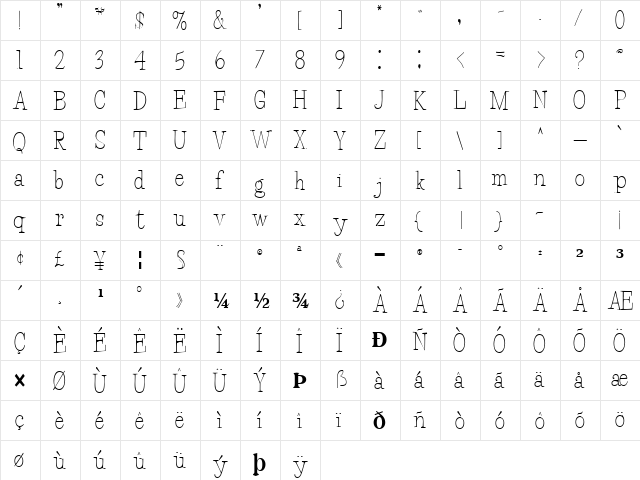
TylerFont88 Regular
Design Context for TylerFont88 Typeface
TylerFont88 is a composed and adaptable typeface that performs quietly and consistently across a wide range of design contexts.